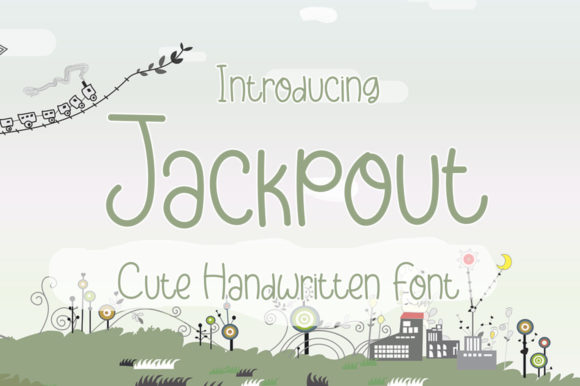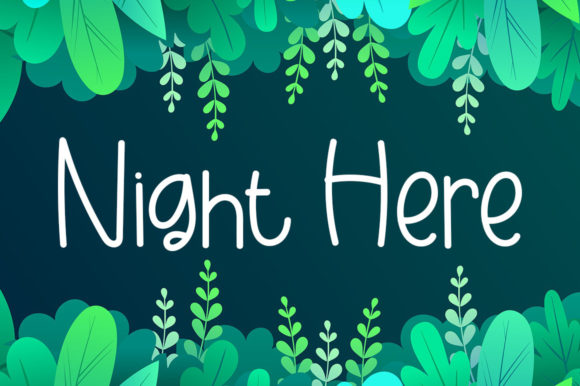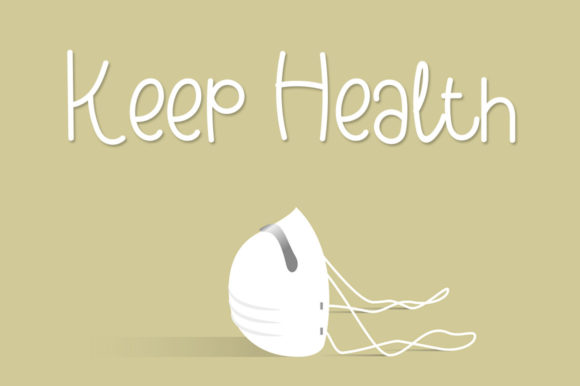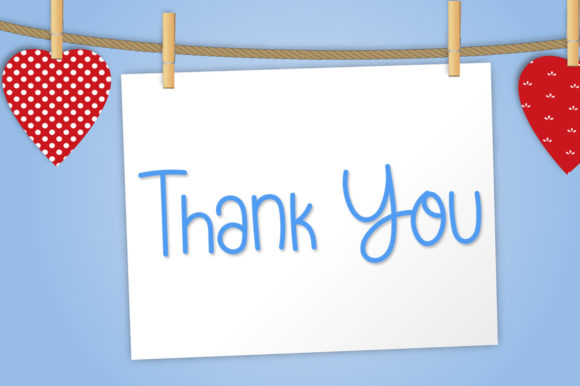
Jackpout Font
About Jackpout Font
Jackpout is a beautiful and sweet font. It is fresh, clean, and elegant. This font will look amazing in a great number of projects, both formal and informal. It will add an incredibly joyful touch to your designs.